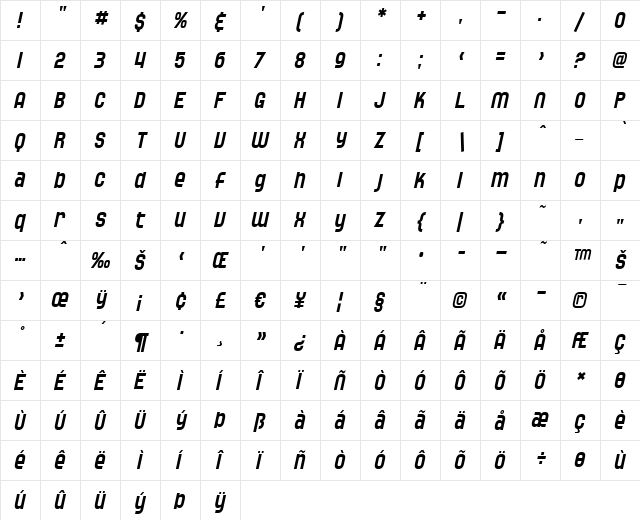
SF Speedwaystar Condensed Oblique
Design Context for SF Speedwaystar Condensed Typeface
SF Speedwaystar Condensed offers clean, dependable letterforms without strong stylistic allegiance, making it a practical choice for designers who need flexibility. The dynamic lean of this cut emphasises speed and emphasis in any layout. Its narrow stance lets it pack a punch even in space-constrained designs.
Pro Tip: Try SF Speedwaystar Condensed for annotation and caption copy alongside an upright companion — the contrast in angle creates a dynamic but ordered typographic system.